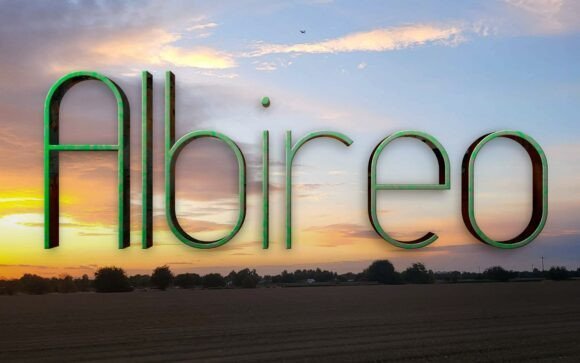
Unlocking the Power of Albireo Font
As a designer, have you ever found yourself staring at a blank page, waiting for the perfect font to bring your creative vision to life? You’re not alone. We’ve all been there, searching for that elusive combination of style and functionality to elevate our work. That’s where the Albireo Font comes in – a sleek and modern sans-serif font designed to breathe life into your titles and headings.
With its beautifully curved and condensed letterforms, Albireo Font adds a refined, streamlined aesthetic to any page or artwork. Its high-tech modern appeal ensures your words resonate with a visually striking impact, making it a valuable addition to any designer’s toolkit. Whether you’re working on a branding project, a graphic novel, or a website, the Albireo Font is ready to transform your textual expression into a work of art.
- Unique Characteristics: Albireo Font features a unique blend of modern and traditional design elements, making it an ideal choice for creative projects that require a touch of elegance and sophistication.
- Font Styles: Albireo Font includes various font styles, including Regular, Italic, Bold, and Bold Italic, providing users with flexibility and options for different design needs.
- Scalability: The font is designed to be highly scalable, ensuring that it looks great in various sizes and resolutions, from small text to large headings.
Albireo Font Review
Albireo Font is a beautiful, modern sans-serif font designed to evoke a sense of elegance and sophistication. I must say, it’s a joy to work with. ✨ The letterforms are clean and well-proportioned, making it perfect for a wide range of applications, from corporate identities to editorial design.
- What I like:
- ✨ Elegant and refined feel
- ✨ Perfect for both digital and print media
- ✨ Highly legible, even at small sizes
- Limitations:
- ⚠️ Not ideal for bold, expressive typography
- ⚠️ May not be suitable for very large or very small text sizes
Overall, I’m impressed with Albireo Font. It’s a solid choice for designers looking for a clean, sophisticated sans-serif font. While it may not excel in every situation, it’s a versatile font that can add a touch of elegance to a wide range of projects. With its high legibility and refined feel, Albireo Font is definitely worth considering for your next design project.
Albireo is a great font for creating visually appealing designs in Canva. Its elegant and modern design makes it perfect for wedding invitations, business cards, and social media graphics.
Albireo is a great font for creating custom logos, branding materials, and illustrations. Its versatility and modern design make it a popular choice among graphic designers.
Albireo is a great font for creating presentations, reports, and documents. Its clean and modern design makes it easy to read and understand.
Albireo is a versatile font that can be used in a variety of situations, including:
- Business cards and branding materials
- Social media graphics and advertising
- Custom logos and illustrations
Montserrat is a modern sans-serif font designed for urban environments. It is perfect for use in logos, headings, and body text where a clean and minimalist look is desired. Montserrat is a more geometric font compared to Albireo, with a stronger emphasis on structure and a more condensed feel. When to use: Logos, headings, body text, urban-themed designs Comparison: Montserrat is more geometric and condensed than Albireo, making it ideal for smaller text sizes and urban-themed designs. Lato is a sans-serif font that is designed to be highly legible and versatile. It is perfect for use in body text, headings, and titles where a clean and elegant look is desired. Lato is a more rounded font compared to Albireo, with a softer and more approachable feel. When to use: Body text, headings, titles, elegant designs Comparison: Lato is more rounded and approachable than Albireo, making it ideal for designs where a softer feel is desired. Open Sans is a modern sans-serif font that is highly legible and versatile. It is perfect for use in body text, headings, and titles where a clean and minimalist look is desired. Open Sans is a more neutral font compared to Albireo, with a balanced feel and a wide range of font sizes. When to use: Body text, headings, titles, minimalistic designs Comparison: Open Sans is more neutral and balanced than Albireo, making it ideal for designs where a clean and minimalist look is desired. Create a visually striking quote wall using Albireo Font. This elegant sans-serif font is perfect for adding a touch of sophistication to your quotes. To use Albireo Font in this project: Tips for combining with other design elements: Create a beautiful and elegant wedding invitation using Albireo Font. This font’s refined and modern look makes it perfect for a sophisticated wedding invitation. To use Albireo Font in this project: Tips for combining with other design elements: The Albireo font is available in OpenType (OTF) and TrueType (TTF) formats, ensuring compatibility with a wide range of operating systems and design applications. Yes, the Albireo font is licensed for commercial use. Please note that you must purchase a license from the font vendor to use the font for any commercial projects, including advertising, publishing, and product design. To install the Albireo font, simply extract the font files from the download package and copy them to your system’s font folder (usually C:\Windows\Fonts on Windows or /Library/Fonts on macOS). Alternatively, you can use a font management tool to install and manage your fonts. The Albireo font is designed for use at medium to large font sizes (14pt-24pt). For optimal readability, we recommend using a line height of at least 1.2 times the font size. This will ensure that the text remains clear and legible, even at larger font sizes.1. Montserrat
Exploring Albireo Font: Creative Project Ideas
Project 1: Albireo Quote Wall
Project 2: Albireo Wedding Invitation